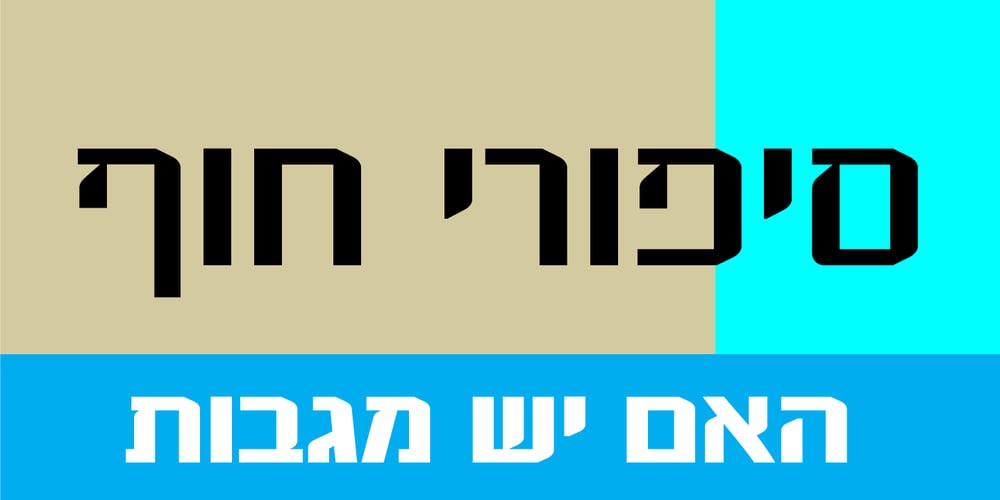
Zooloo MF Font Family was designed by Zvika Rosenberg and published by Masterfont. Zooloo MF contains 3 styles and family package options. Square and sharp forms make this elegant font family a great companion for titles, invitations and signs, indoor and outdoor.